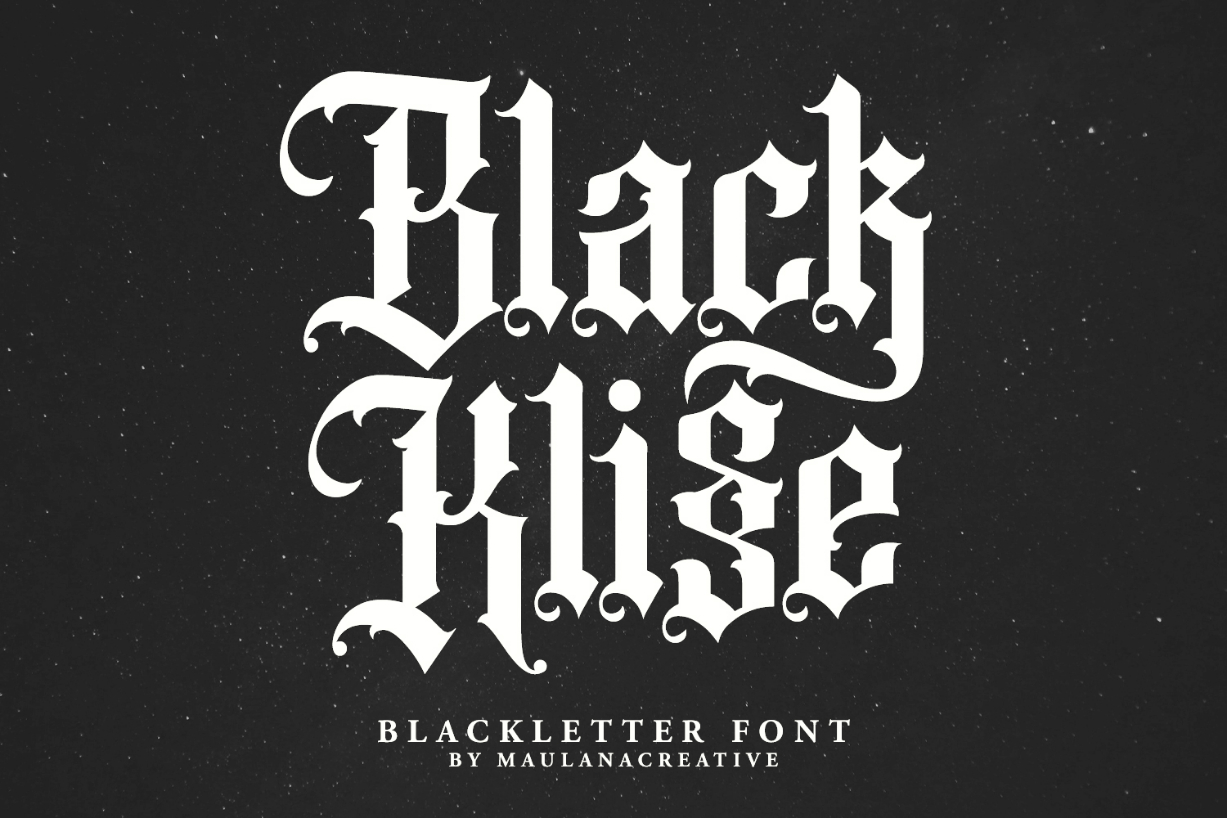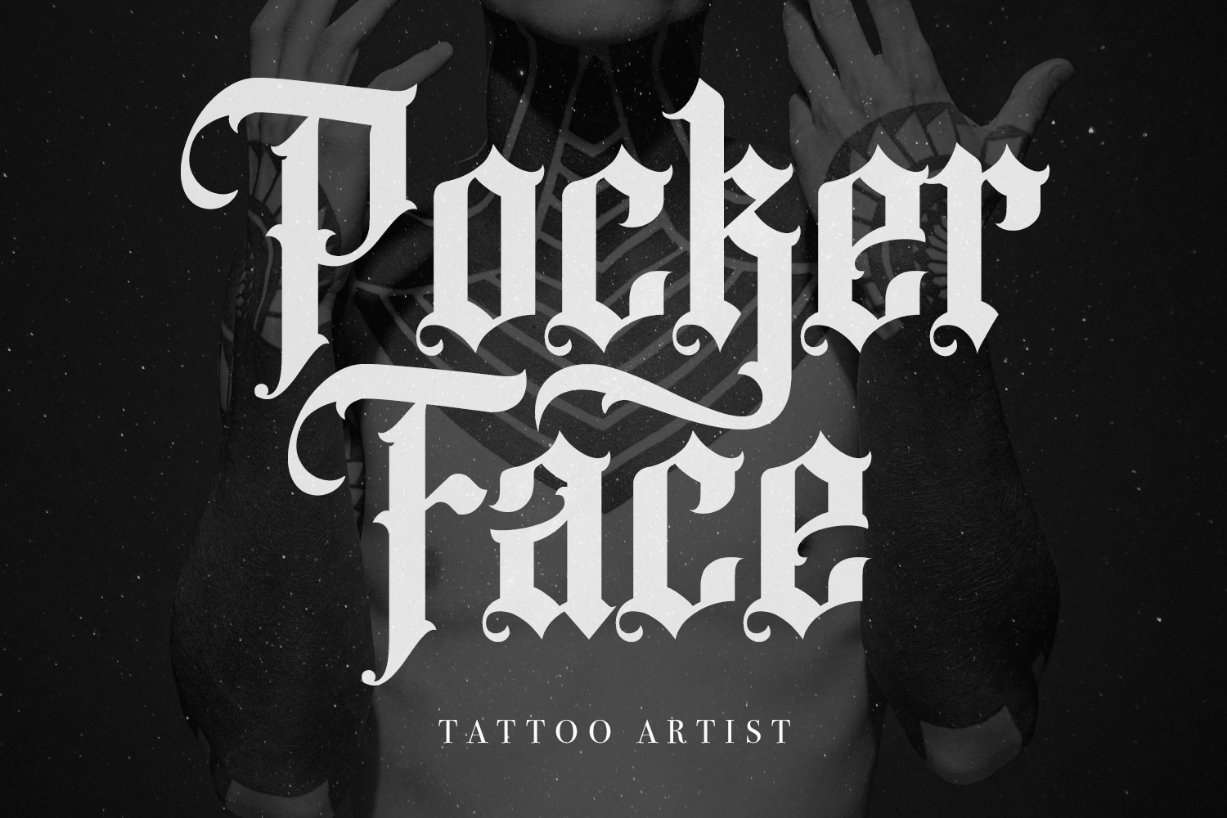
About Black Klisse Font
Black Klisse is a bold and authentic blackletter font. It has a dramatic style and it is ideal for each of your classic designs.